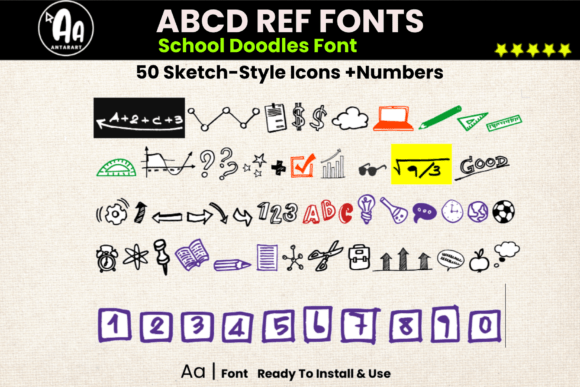
Unlocking Creativity with Abcd Ref School Icons Font
Have you ever been in the middle of a design project, and suddenly, you’re stuck searching for that one perfect font to bring your vision to life? I recall a recent experience where I was tasked with creating educational materials for a client’s kids’ learning corner. The project required a fun, yet practical font that could enhance the overall learning environment. That’s when I stumbled upon the Abcd Ref School Icons Font, and it completely transformed my design process.
- âś… Over 52 hand-drawn-style school icons and number symbols that add a playful touch to any design project.
- ✅ Perfect for educational creators, teachers, and designers looking to enhance classroom décor, worksheets, student planners, and more.
- âś… Ideal for back-to-school themes, classroom posters, bulletin boards, phonics activities, preschool resources, and kindergarten worksheets.
While the Abcd Ref School Icons Font is incredibly versatile, there are a few things to keep in mind:
- 🤔 Some users might find the font a bit limited for non-educational projects, but its uniqueness makes it perfect for specific design needs.
- ⚠️ As with any dingbat font, make sure to explore the glyphs and OpenType features to get the most out of it.
The Abcd Ref School Icons Font was likely created with the intention of providing educators and designers with a unique, practical tool for enhancing learning environments. The font’s hand-drawn style and playful icons evoke a sense of nostalgia and fun, making it perfect for educational projects.
| Font Name | Abcd Ref School Icons Font |
| Author | AntarArt |
A: Abcd Ref School Icons Font is ideal for educational projects, classroom décor, worksheets, student planners, printables, and digital design projects.